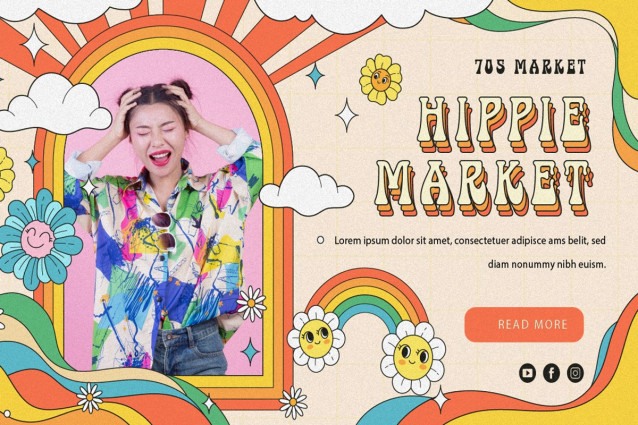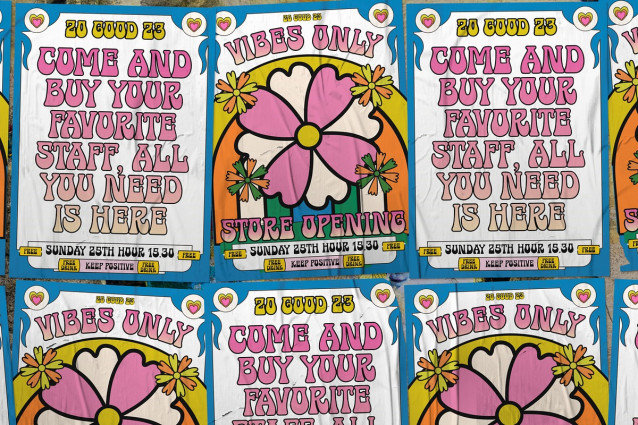
The Psychedelic Peace Font
The Psychedelic Peace Font – a bold, retro-inspired display font that radiates love, peace, and good vibes! This eye-catching font is perfect for designers and creators who want to channel the groovy spirit of the psychedelic era.